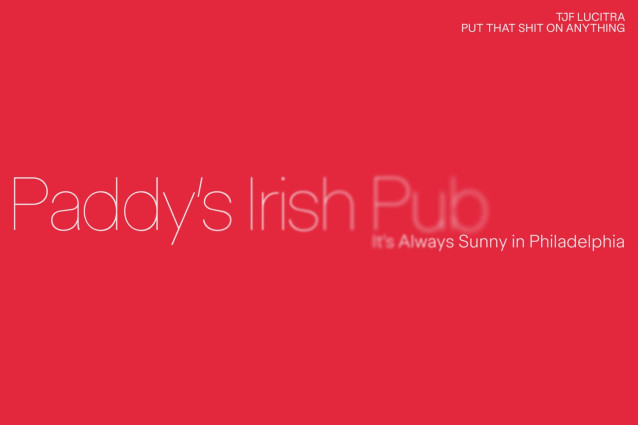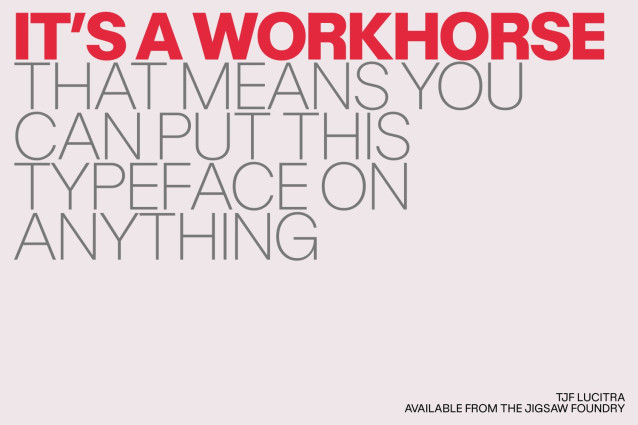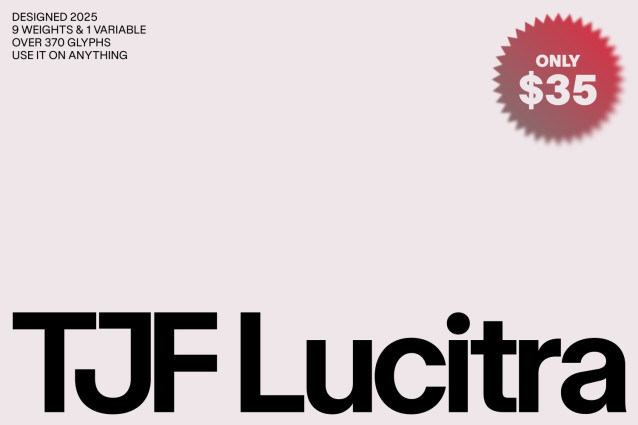
TJF Lucitra Font is a functional workhorse typeface. With nine weights and over 360 glyphs, you can pretty much put it on anything and have it look nice and clean. Inspired by grotesques like Helvetica and Folio with a modernist spin, Lucitra is usable throughout various mediums – whether it be print, web, or screen.I plan to update it more in the future, so if you buy it now you will get all future updates at no extra cost.